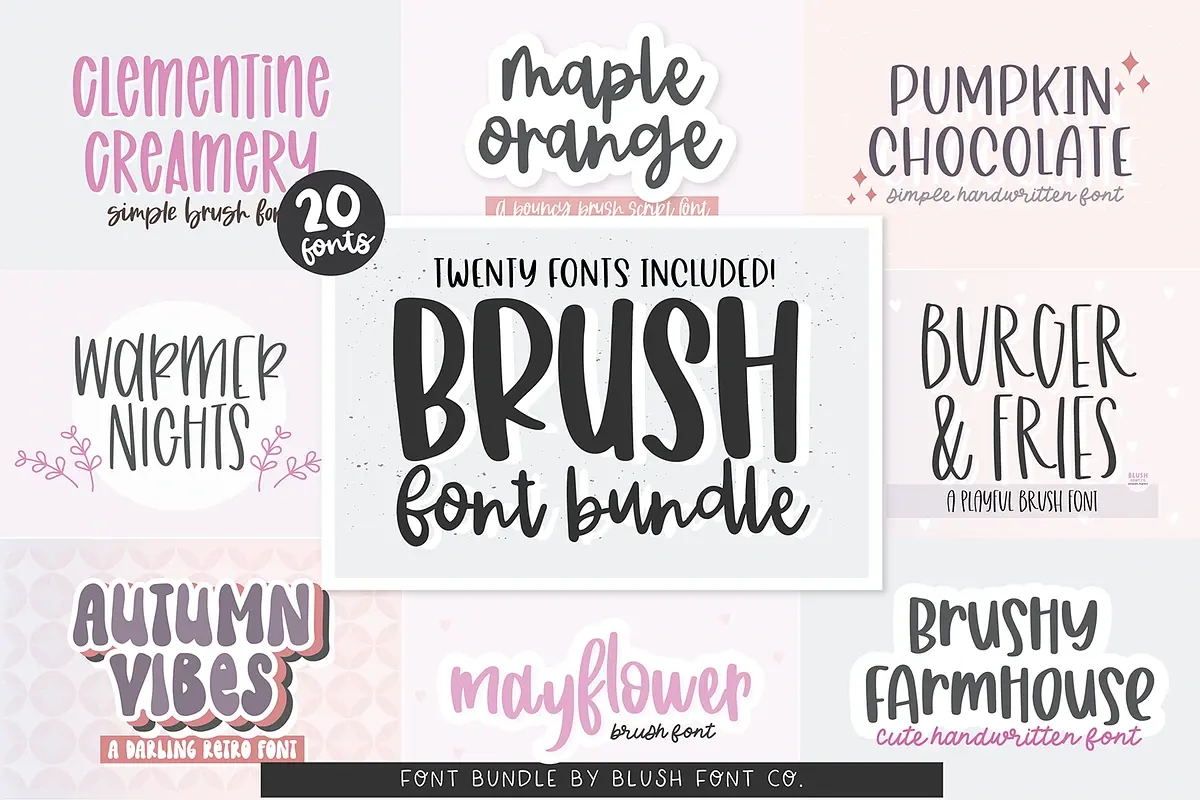
20 Fonts – Brush Font Bundle Free Download is a dynamic collection of handcrafted brush typefaces designed to add energy, expression, and personality to your designs. Featuring 20 unique fonts, this bundle is perfect for posters, streetwear branding, music covers, YouTube thumbnails, social media graphics, and edgy product packaging. Each font brings its own flair—ranging from rough and gritty to smooth and modern brush styles.
Designers love the 20 Fonts – Brush Font Bundle Free Download because it offers versatility and raw character all in one package. With expressive strokes, realistic textures, and natural flow, these fonts let you create eye-catching visuals with a handmade touch.